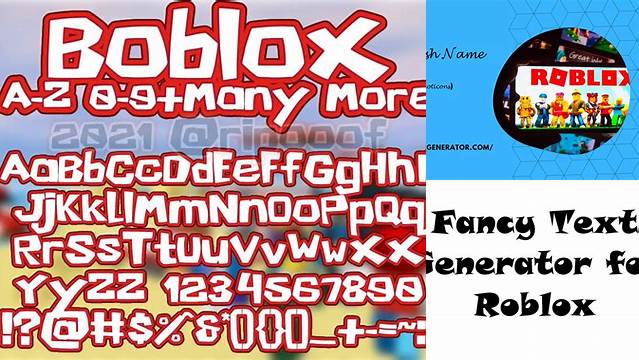
Cool Roblox Fonts: Copy & Paste Guide
Hey guys! Want to jazz up your Roblox game with some awesome fonts? You've come to the right place! In this guide, we'll dive deep into how you can use cool fonts in Roblox by simply copying and pasting. It's easier than you think, and it'll make your creations stand out. Let's get started!
1. Understanding Roblox Font Limitations
Before we jump into the fun stuff, it's important to understand the limitations Roblox has when it comes to fonts. Roblox doesn't support custom font files directly uploaded into the game for most in-game text elements like player names or chat messages. This is primarily due to security and performance considerations. However, there are still ways to use cool fonts in Roblox, mainly by leveraging the TextService and other creative workarounds. Understanding these limitations helps us appreciate the methods we can use to add flair to our games.
Roblox’s built-in font options are intentionally limited to ensure cross-platform compatibility and to maintain a consistent aesthetic across all games. This means that if a game developer were to upload a custom font, it might not display correctly on all devices, or it could cause performance issues. By sticking to a standardized set of fonts, Roblox ensures that everyone has a similar experience. So, while we can't directly upload our favorite fonts, we can still get creative with what's available and with some clever tricks.
Knowing these limitations also helps manage expectations. For instance, attempting to directly replace the default fonts in the Roblox client is a no-go. But, this doesn't mean we're entirely out of options. There are specific areas within Roblox where you can still use different fonts, and we'll explore those in detail in the following sections. So, keep those creative hats on, and let’s see how we can make our text pop in Roblox!
2. Utilizing Roblox's TextService for Rich Text
One of the coolest ways to use cool fonts in Roblox is by leveraging the TextService. This powerful tool allows you to render rich text, meaning you can format text with different fonts, colors, and sizes. It's like having a mini word processor right inside your game! The TextService is particularly useful for creating in-game dialogue, tutorials, or any other text-heavy elements where you want to make a visual impact.
To utilize the TextService, you'll primarily be working with RichText-formatted strings. RichText is a markup language similar to HTML, allowing you to add tags that control the appearance of your text. For example, you can use tags to change the font, size, and color of specific words or phrases within a TextLabel or TextButton. This is a game-changer when you want to emphasize certain points or add a unique stylistic touch to your UI.
Here’s a simple example of how you might use RichText in Roblox: lua local textLabel = Instance.new("TextLabel") textLabel.Parent = game.Players.LocalPlayer.PlayerGui textLabel.Size = UDim2.new(1, 0, 1, 0) textLabel.BackgroundTransparency = 1 textLabel.Text = "<font face=\"ArialBold\" size=\"30\" color=\"rgb(255,0,0)\">Hello</font> <font face=\"Arial\" size=\"20\" color=\"rgb(0,0,255)\">World</font>" textLabel.RichText = true In this snippet, we're creating a TextLabel and setting its RichText property to true. Then, we're using <font> tags to specify the font face, size, and color for different parts of the text. This allows for a dynamic and visually appealing display, making your game more engaging for players.
3. Exploring the Available Font Families in Roblox
Roblox offers a selection of built-in font families that you can use to add cool fonts to your game. While you can't upload custom font files directly, the fonts that are available cover a wide range of styles, from classic and formal to modern and playful. Knowing what's on offer is the first step to making your text elements visually appealing. Let’s explore some of the key font families you can use.
Arial is a common and versatile font, perfect for clear, readable text. It's a great choice for body text and general UI elements. Its clean lines and familiar appearance make it ideal for conveying information without distracting the player. Think of it as the workhorse of your font arsenal – reliable and always a good choice when readability is paramount.
ArialBold is the bolder version of Arial, adding emphasis and weight to your text. It's fantastic for headings, titles, and highlighting important information. If you want something to stand out, ArialBold is your go-to font. It commands attention without being overly flashy, making it a solid choice for UI elements that need to pop.
SourceSans is a modern and sleek font that's gaining popularity among developers. Its clean, geometric design makes it a great fit for contemporary game interfaces. SourceSans is particularly effective for creating a polished and professional look, and it works well in both large and small sizes. If you’re aiming for a modern aesthetic, SourceSans should be on your radar.
SourceSansBold offers the same modern appeal as SourceSans but with added emphasis. It’s perfect for highlighting key information or creating bold headings. Like ArialBold, SourceSansBold helps draw the eye, but it does so with a more contemporary feel. This makes it a great option for games that want to blend a clean, modern look with standout elements.
7. Using Symbols in Roblox Chat
One of the simplest and most impactful ways to use cool fonts in Roblox using symbols is in the chat. Chat is a primary form of communication in Roblox games, and adding a few well-placed symbols can make your messages stand out from the crowd. It’s a fun way to express yourself and add some personality to your interactions with other players. Let's explore how you can leverage symbols in Roblox chat.
Adding personality to your messages is a breeze with symbols. Imagine you want to convey excitement or enthusiasm. Instead of just typing